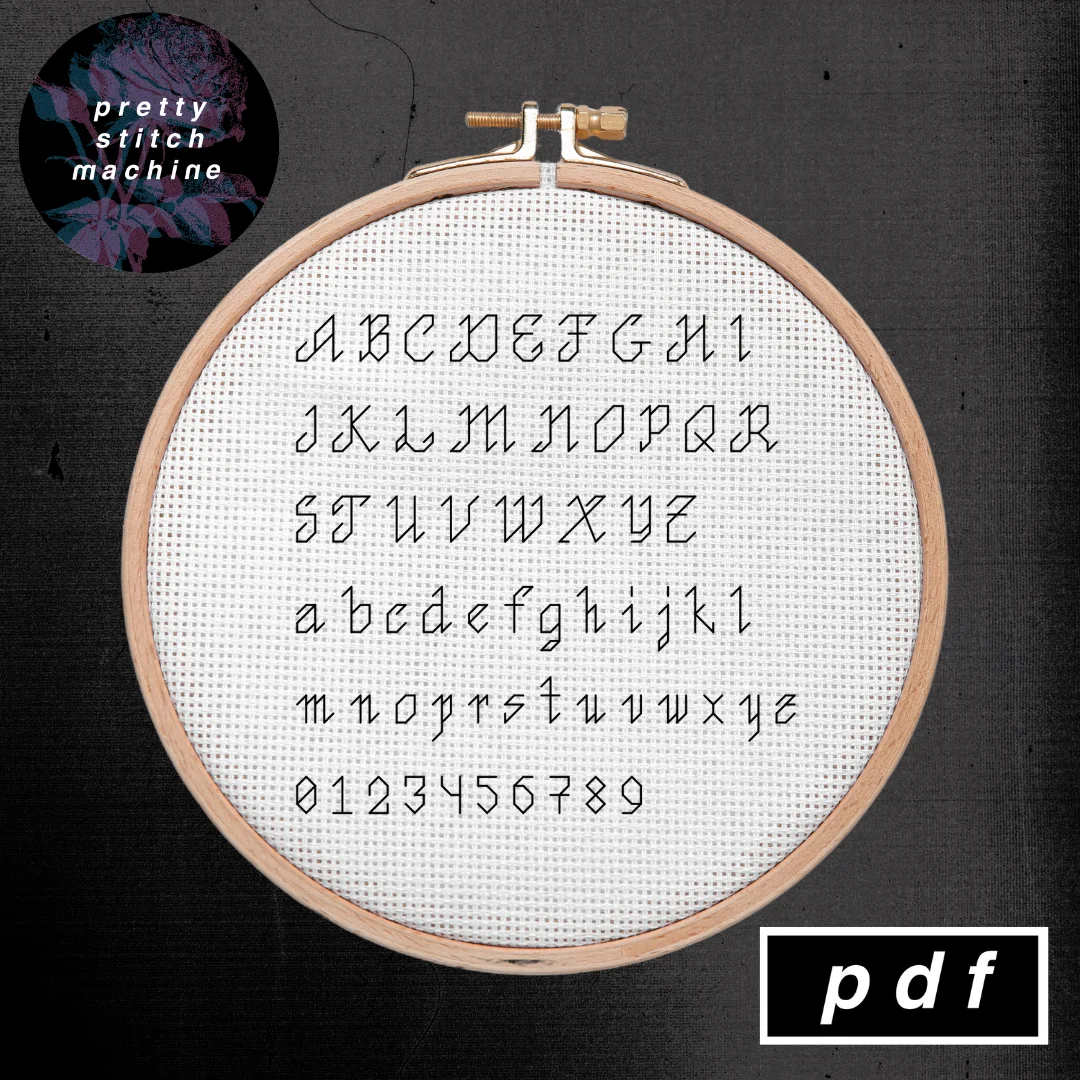
Mourning Back Stitch Alphabet / Font
difficulty level: advanced beginner
dimensions: letters vary from 2 – 5 stitches in width, all letters are 5 stitches in height, all numbers are 4 stitches in height and 2 stitches in width
↠ pattern designed on 14 count aida
↠ pattern uses 1 color
↠ pattern uses back-stitches